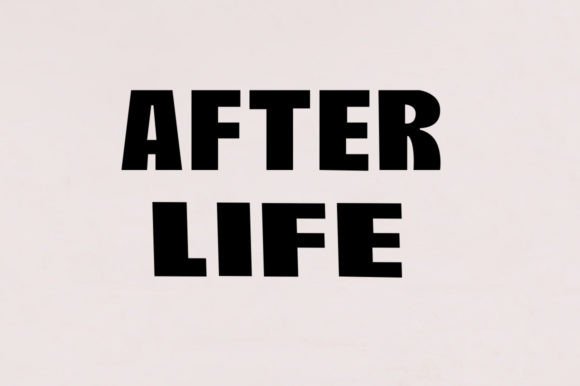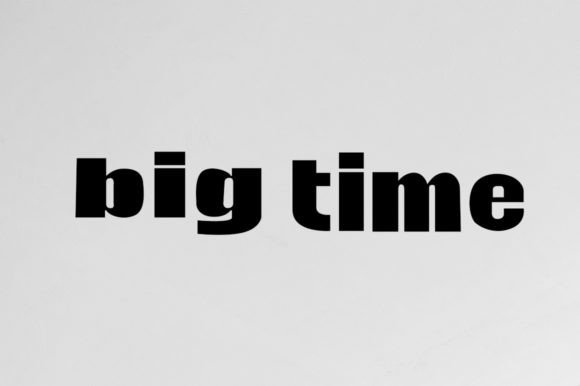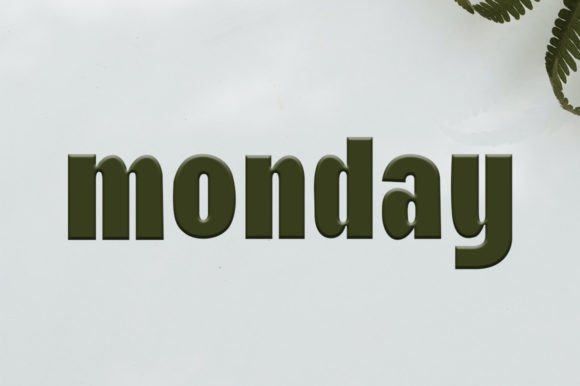
The Timeless Elegance of Butterfly Font: A Designer’s Delight
In the vast world of typography, few fonts manage to capture the essence of elegance and simplicity as effectively as the Butterfly font. This classic sans serif font has been a staple in the design community for its versatility, readability, and aesthetic appeal. Whether you’re a seasoned designer or a crafty enthusiast, the Butterfly font is an excellent choice for a wide range of projects, from logo designs and social media graphics to movie titles, book titles, headlines, and banners.
What Makes Butterfly Font Stand Out?
The Butterfly font is characterized by its clean lines, simple shapes, and a modern yet timeless feel. Its sans serif design ensures that the text remains clear and legible, even at smaller sizes, making it perfect for digital platforms as well as print materials. The font’s elegance lies in its subtle curves and balanced proportions, which lend it an air of sophistication suitable for high-end branding and editorial content.
Versatility Across Different Design Applications
One of the key advantages of the Butterfly font is its incredible versatility. Here are some of the many ways you can use this font to elevate your designs:
- Logo Designs: The simplicity and elegance of the Butterfly font make it an excellent choice for logos. It can help create a strong brand identity that communicates professionalism and sophistication.
- Social Media Graphics: In the fast-paced world of social media, standing out is crucial. The Butterfly font can help you create eye-catching graphics for posts, stories, and ads that capture attention and engage your audience.
- Movie and Book Titles: For movie posters, book covers, and other editorial projects, the Butterfly font offers a classic look that can add a touch of glamour and prestige.
- Headlines and Banners: Whether you’re designing a website, a flyer, or a billboard, the Butterfly font is perfect for headlines and banners. Its clarity and impact ensure that your message gets across effectively.
Why Designers and Crafters Love Butterfly Font
Designers and crafters appreciate the Butterfly font for several reasons:
- Ease of Use: The font’s simplicity makes it easy to pair with other typefaces, allowing for endless creative possibilities.
- Legibility: Its clear and straightforward design ensures that your message is always communicated clearly, regardless of the context.
- Aesthetic Appeal: The elegant design of the Butterfly font adds a touch of sophistication to any project, making it a favorite among those who value high-quality design.
Tips for Using Butterfly Font Effectively
To get the most out of the Butterfly font, consider the following tips:
- Experiment with Sizes: While the Butterfly font is legible at small sizes, experimenting with different sizes can help you achieve the desired impact.
- Play with Colors: The font’s simplicity makes it versatile enough to work well with a wide range of colors and gradients.
- Combine with Other Fonts: Don’t be afraid to pair the Butterfly font with other typefaces to create visual interest and hierarchy in your designs.
The Butterfly font is a timeless design classic that offers elegance, versatility, and readability. Whether you’re working on a professional project or a personal craft, this sans serif font is sure to enhance your designs and help you communicate your message effectively. With its wide range of applications and ease of use, the Butterfly font is a valuable addition to any designer’s toolkit.
So, next time you’re looking for a font that combines simplicity with sophistication, consider the Butterfly font. Its classic appeal and modern feel make it the perfect choice for creating stunning designs that stand out.